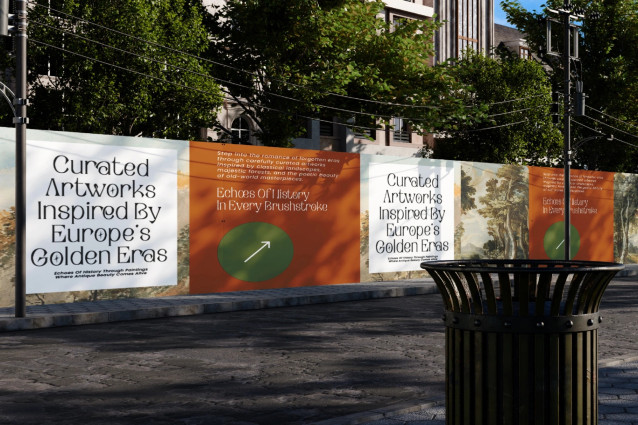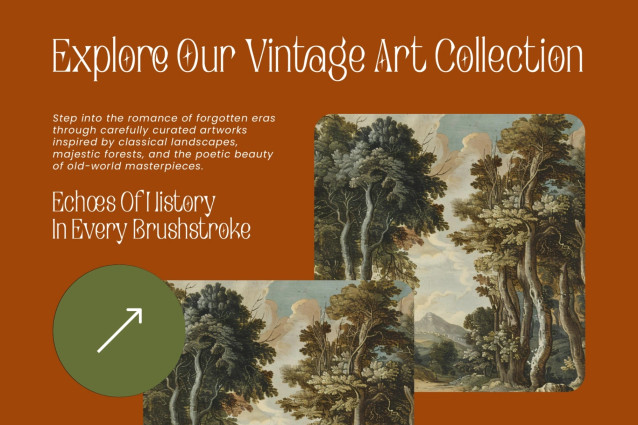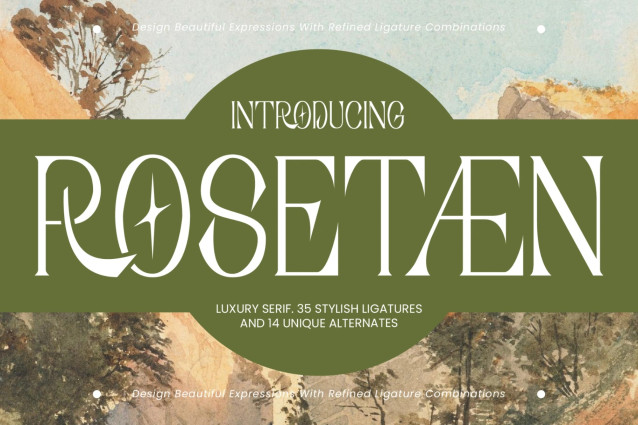
Rosetaen Serif Font
Rosetaen is a luxury serif font crafted to bring sophistication, elegance, and artistic character to modern typography. Featuring refined letterforms, stylish ligatures, and beautifully designed alternates, this typeface creates a distinctive visual identity that feels both timeless and contemporary.
Designed for premium branding and editorial excellence, Rosetaen combines high-contrast serif details with graceful curves, resulting in a font that commands attention while maintaining an elegant and polished appearance. With 35 stylish ligatures and 14 unique alternates, designers can effortlessly create custom typography that feels exclusive and memorable.
Whether you’re building a luxury brand, designing packaging, creating editorial layouts, or crafting high-end marketing materials, Rosetaen delivers a refined aesthetic that elevates every project with confidence and style.